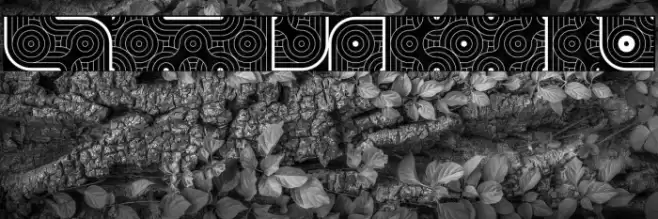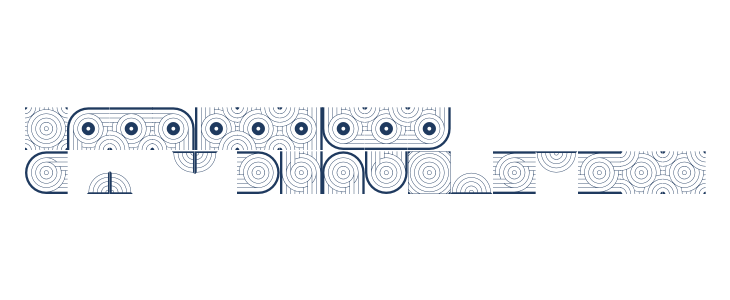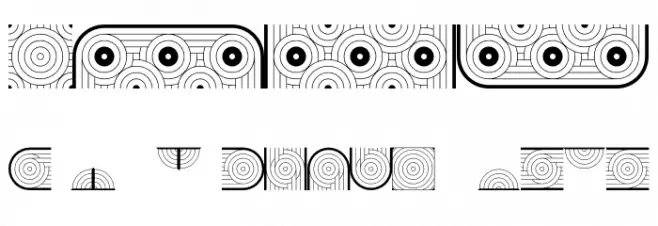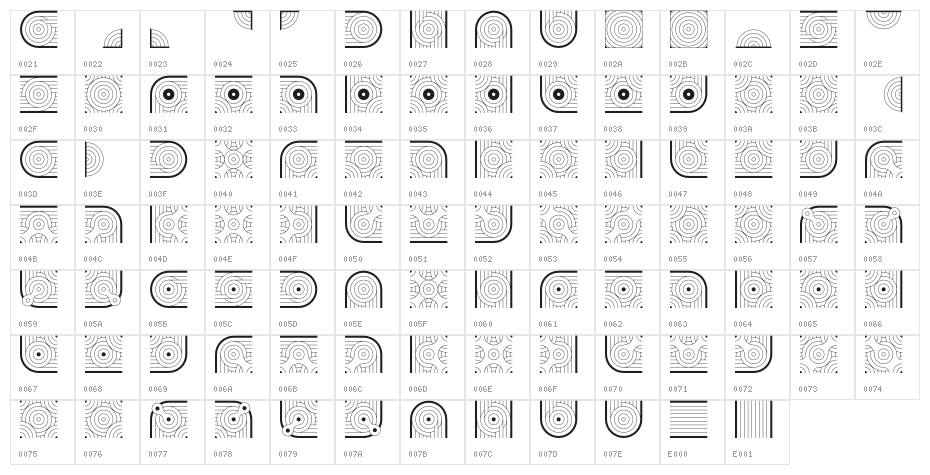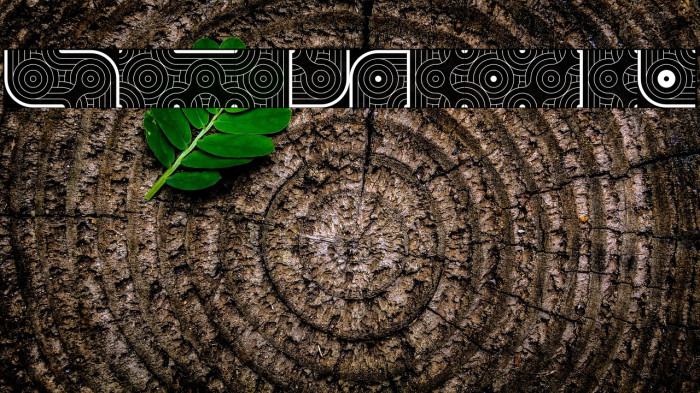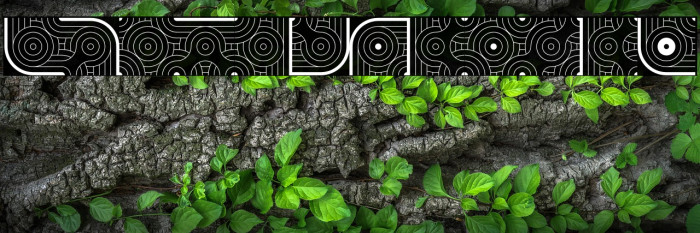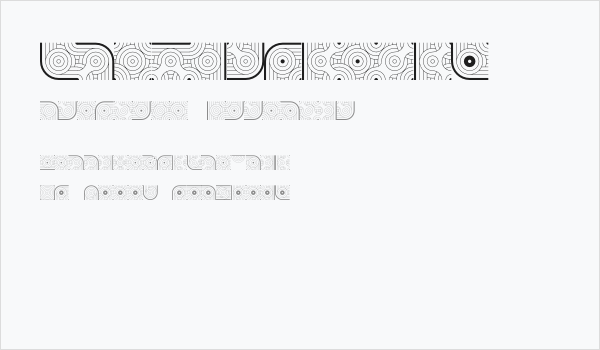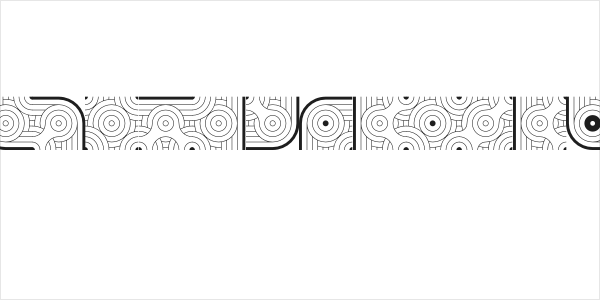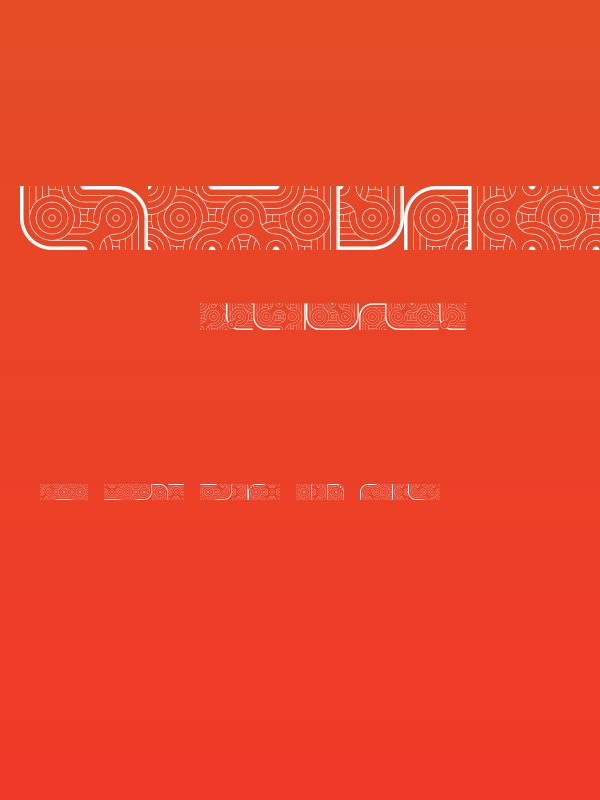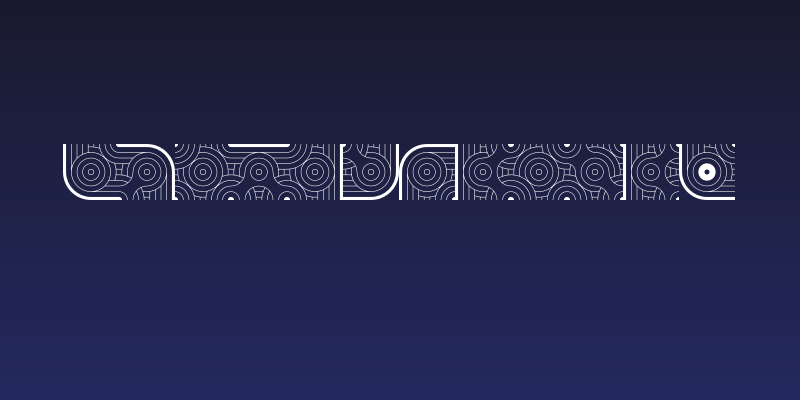
GlukFramesM7 Font
GlukFramesM7 Description
This font features a highly decorative and intricate design, characterized by a series of concentric circles and geometric patterns that fill each character. The style is reminiscent of Art Deco with a modern twist, offering a unique visual appeal that is both bold and artistic. Each letter and symbol is enclosed within a rounded rectangular frame, adding to its distinctiveness. The font's complexity and detailed patterns make it stand out, suitable for projects that require a strong visual impact.
A decorative font with intricate geometric patterns and concentric circles from Uncategorized fonts.
- Proposed Projects: Ideal for use in artistic projects, posters, album covers, or any design that requires a bold and decorative typeface.
- Use Case: Logos, Posters, Artistic Designs